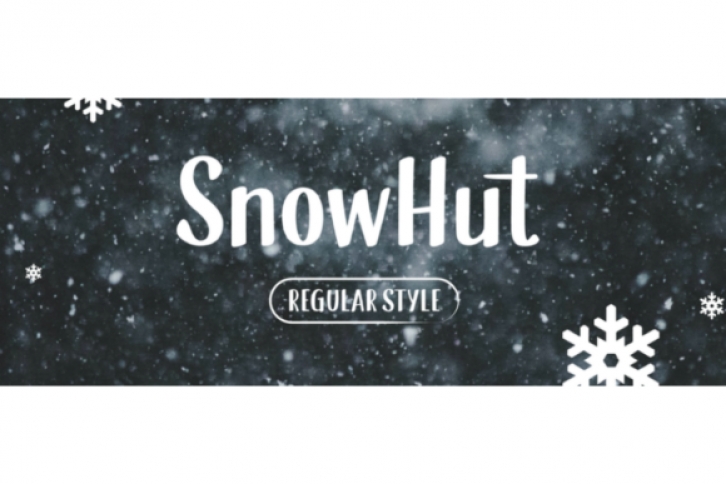
Snowhut is a cute and friendly display font. A bit chunky and adept, this font will fit a wide variety of designs, such as branding, product packaging, invitation, quote, t-shirt, label, poster, logo that you wish to develop.